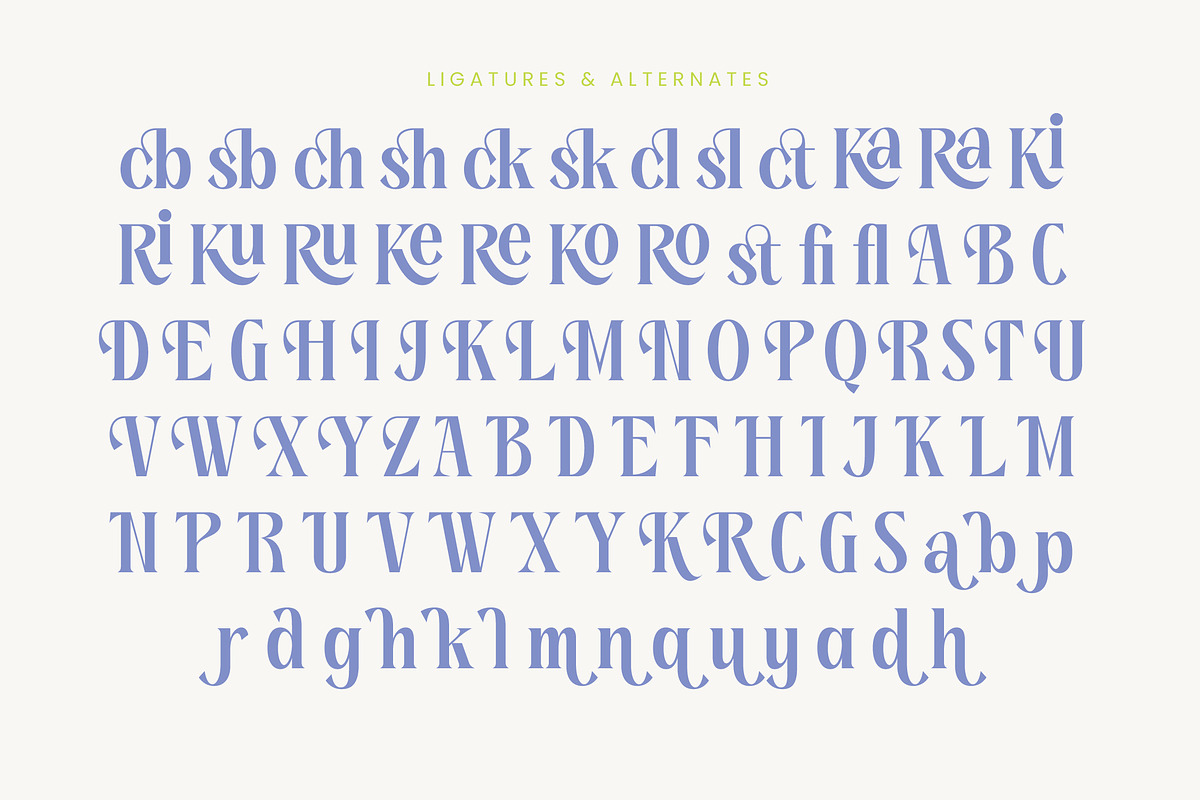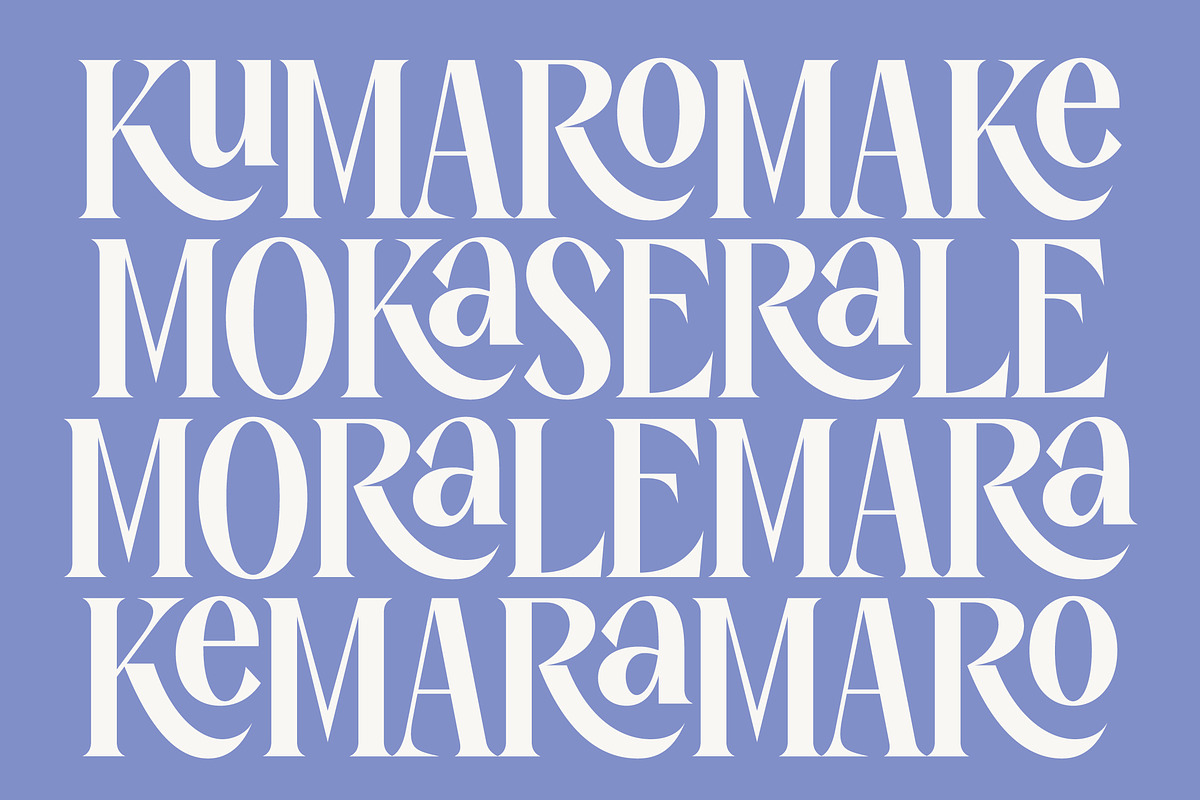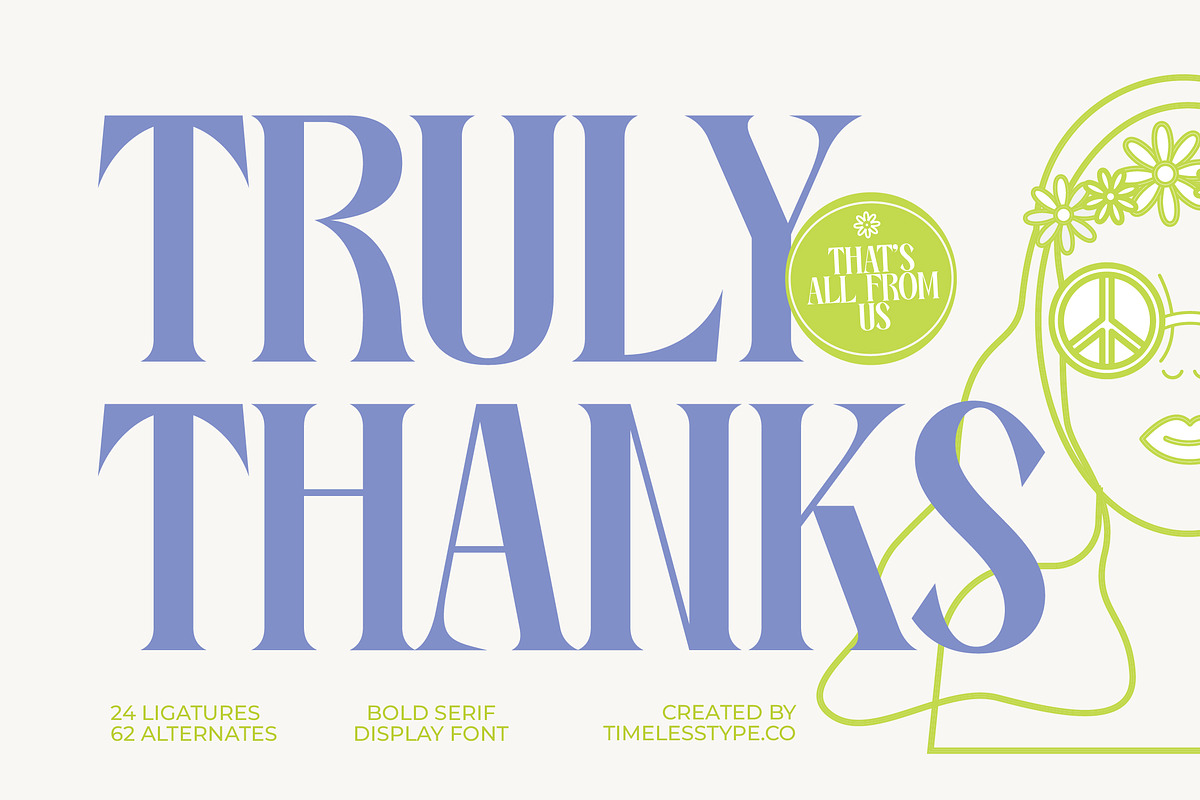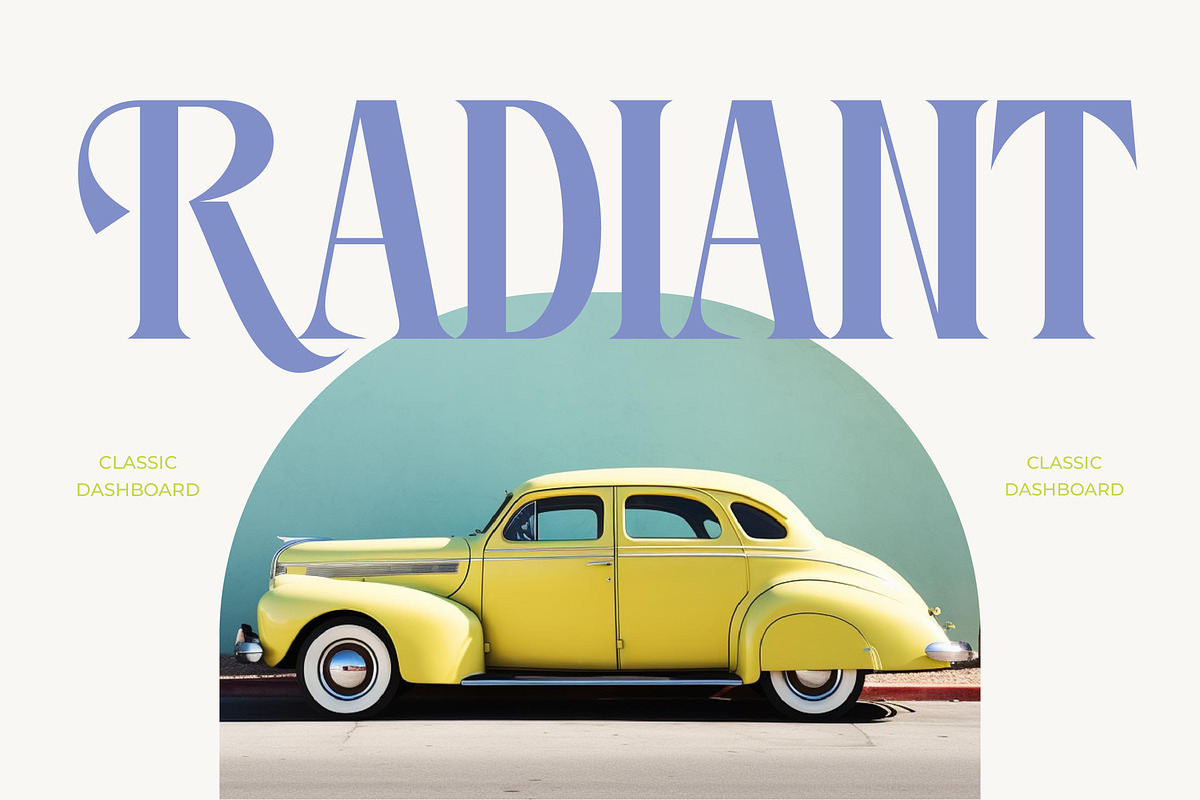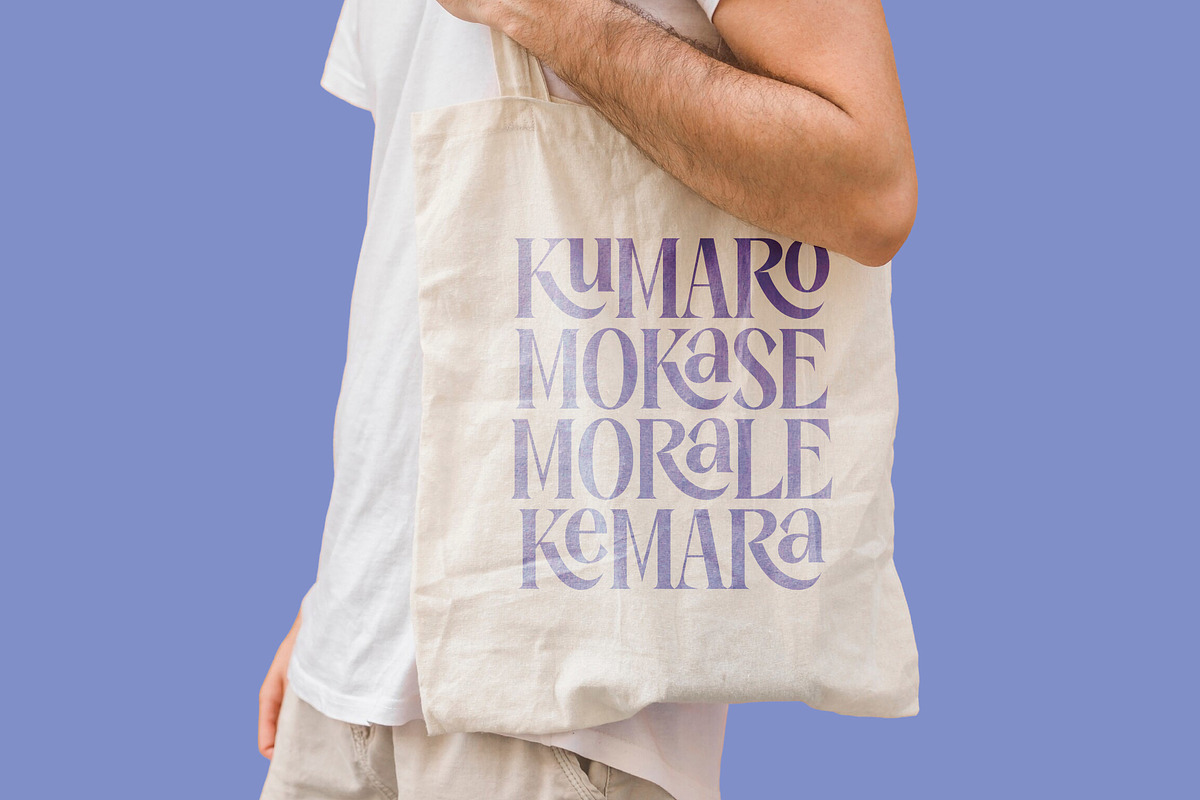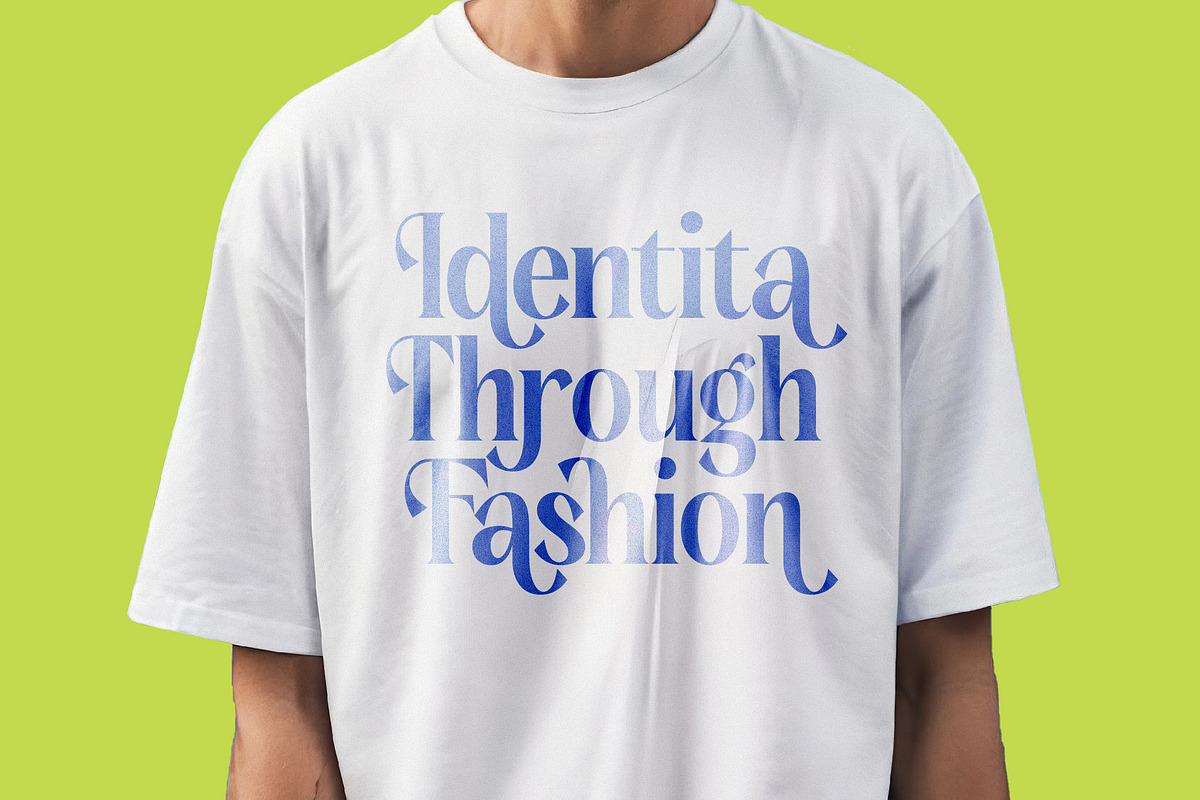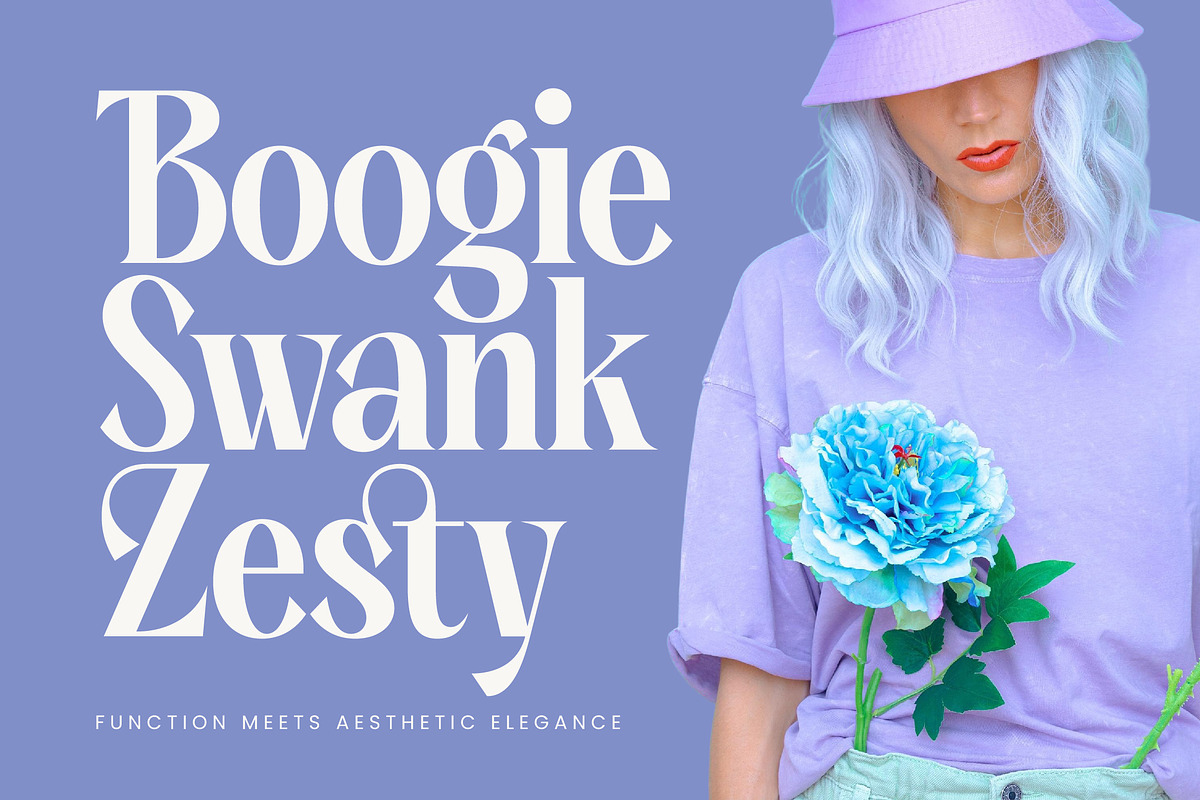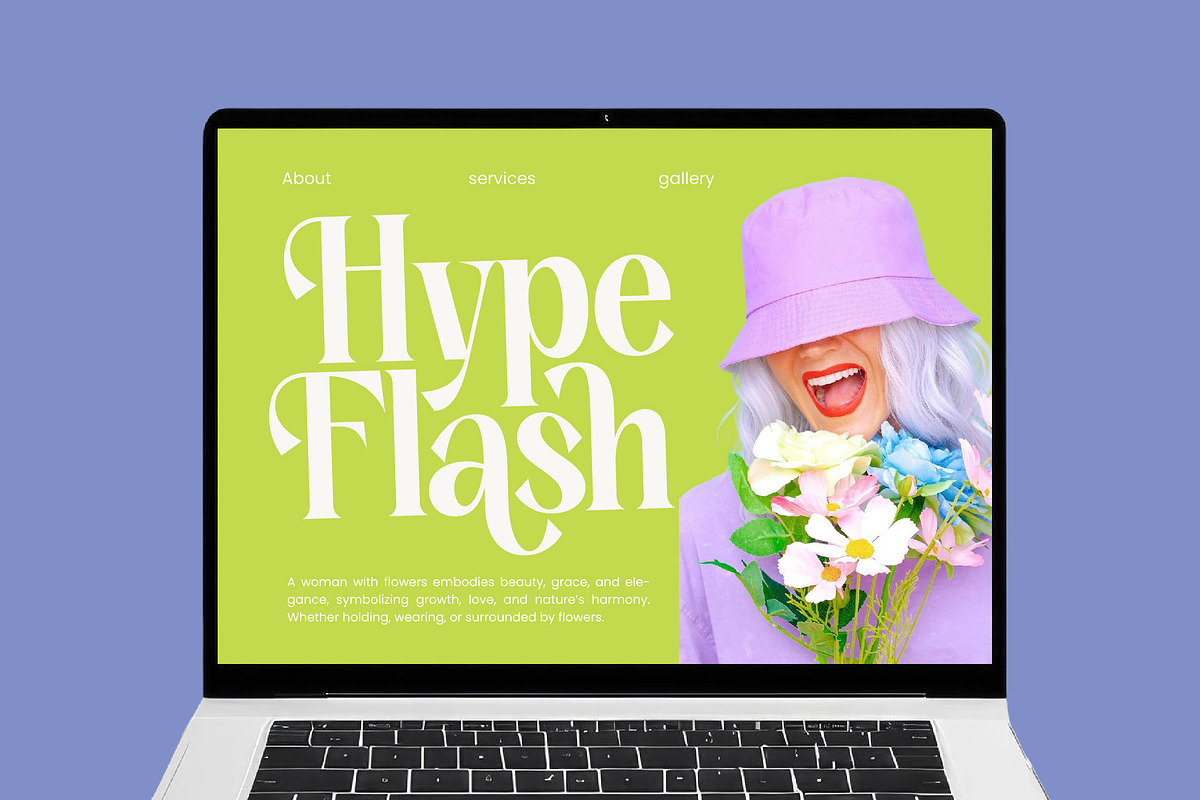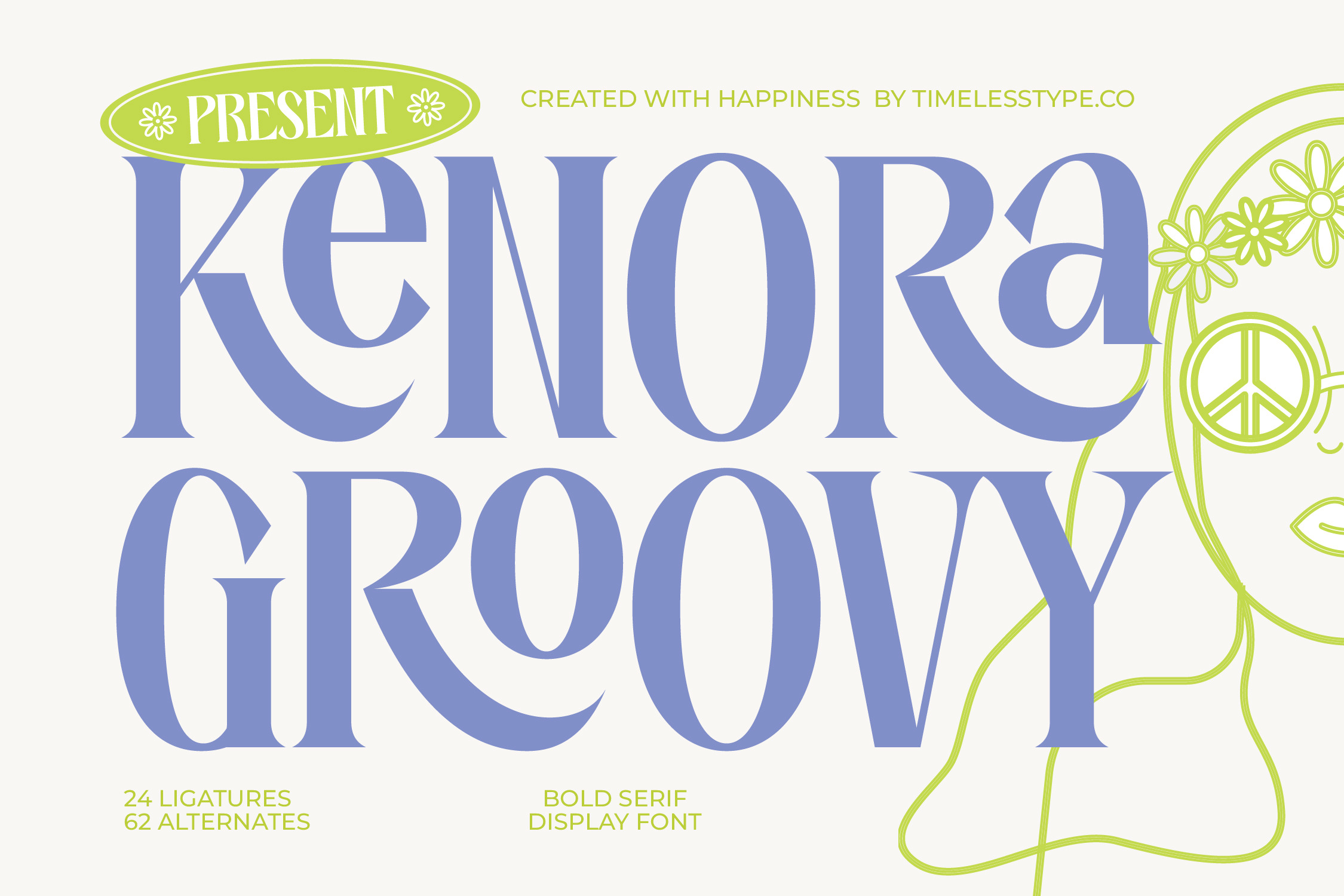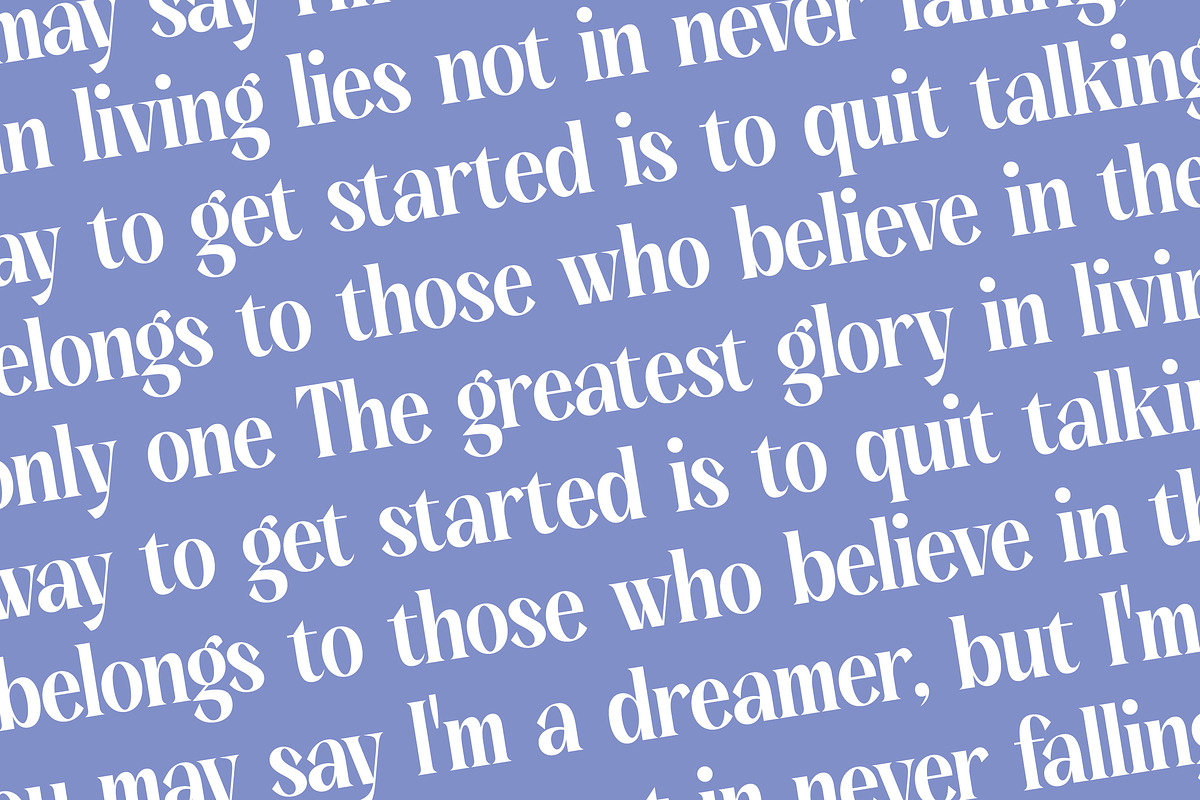
Kenora Groovy Retro Serif Font
Embrace a world of nostalgic charm and vibrant energy with the stunning Kenora Groovy. This typeface captures the essence of a free-spirited era while maintaining a polished, contemporary edge for today's creators.
Inspired by the psychedelic soul of the 1970s and the soft curves of vintage flower-power posters, this font breathes life into every design with its rhythmic flow. It reflects an atmosphere of peace, love, and high-end artistic expression that transcends simple lettering.
As a modern serif display powerhouse, it offers unparalleled luxury typography that commands attention on any page. The high-contrast serif strokes provide a sophisticated branding impact, making it the perfect editorial font for projects that require a bold yet graceful personality.
Staying ahead of the modern serif trend, this typeface is designed for designers who crave character-driven typography that stands out in a crowded market. It perfectly aligns with the current shift toward editorial display fonts that blend historical nostalgia with clean, professional execution.
Whether you are crafting a unique logo design or building a cohesive brand identity, its versatility shines across branding, editorial spreads, and premium packaging. It is an ideal choice for high-end fashion lookbooks or even a bespoke wedding invitation suite that needs a touch of retro flair.
This font is packed with creative potential, including 24 unique ligatures and 62 stylistic alternates to customize your look. With full multilingual support and a comprehensive set of international characters, it ensures your message reaches a global audience without losing its swashes and decorative charm.
- Ligature 24 Alternate 62